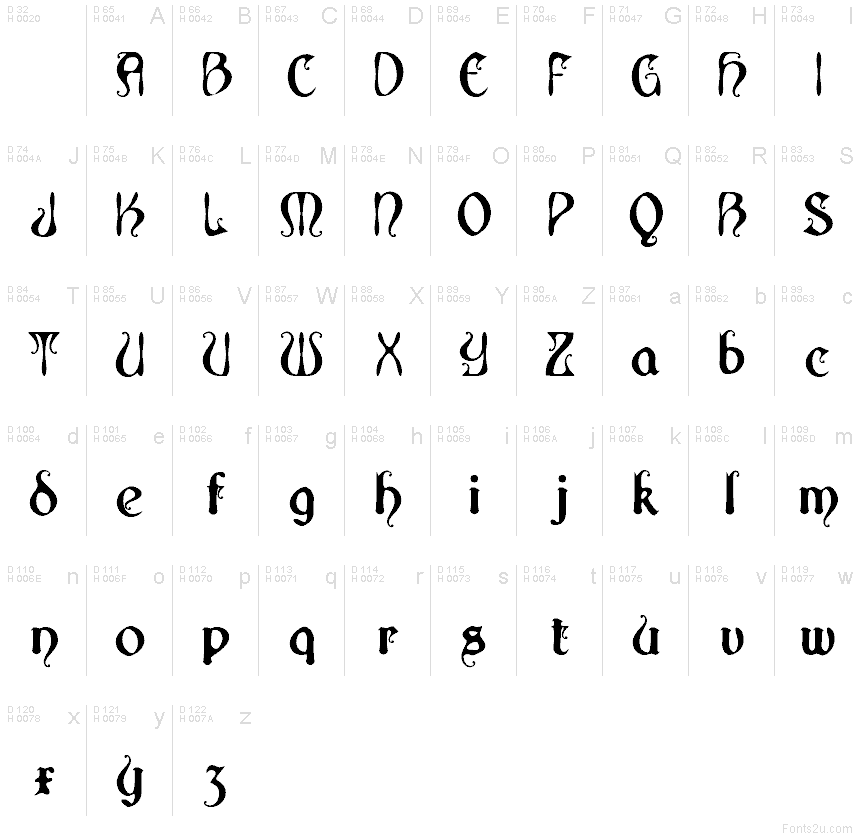
CSAmapolaDrawn-Regular Demo
CS Amapola Drawn font by Craft Supply Co. is a vintage display typeface that exudes elegance and sophistication. It immediately pulls attention to every character, bringing them together into a striking presentation form that catches the eye and captivates its reader. Despite the classic style it features, this font has modern influences.
Potential uses to incorporate CS Amapola would include websites, blogs, product packaging design, branded stationery creation, and more. Other ideas would be logos or signatures, posters or magazine spreads, invitations or greeting cards.